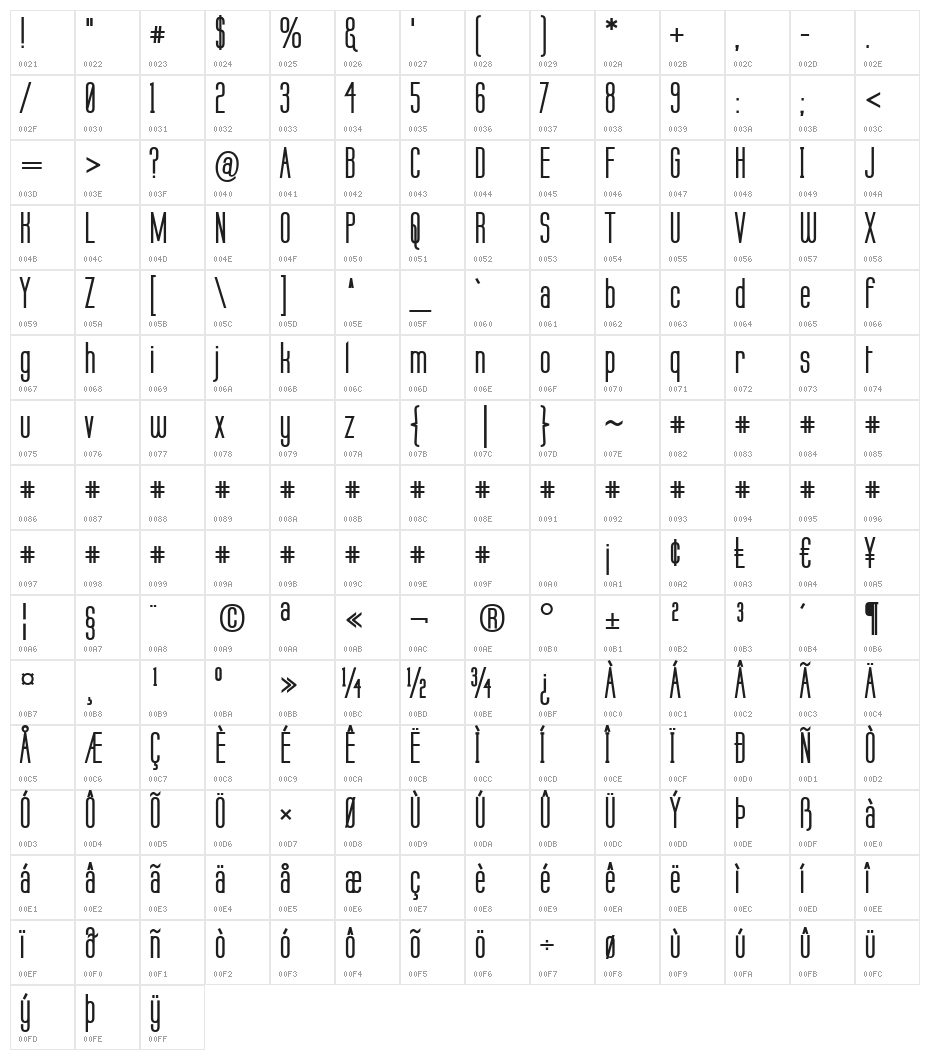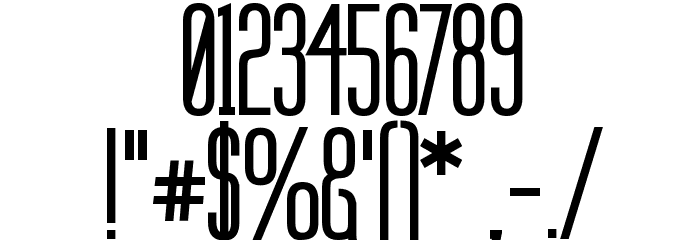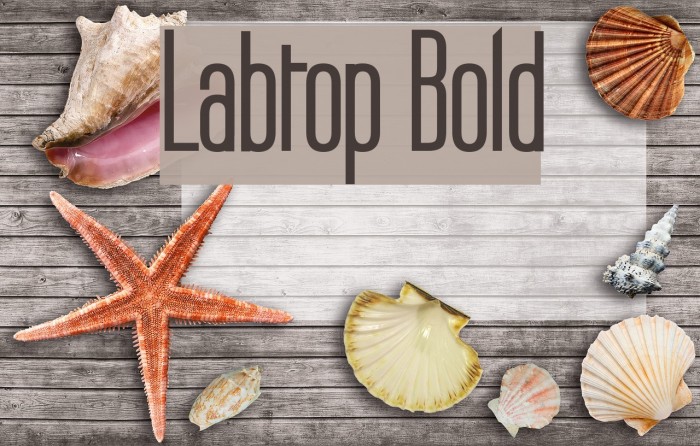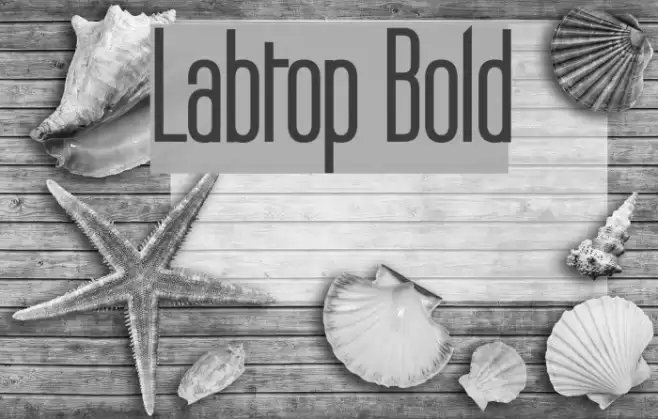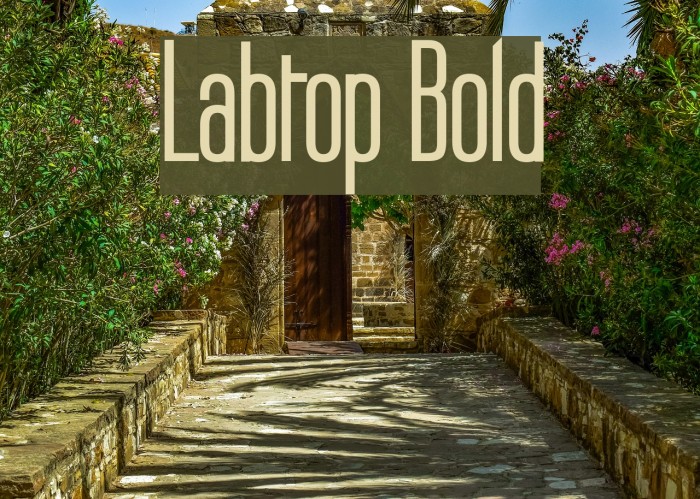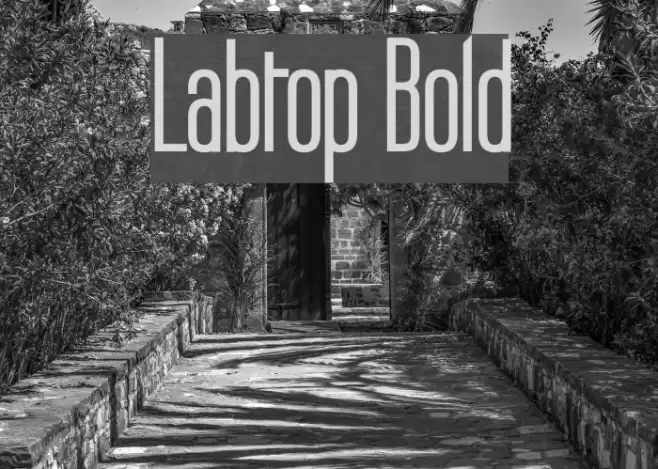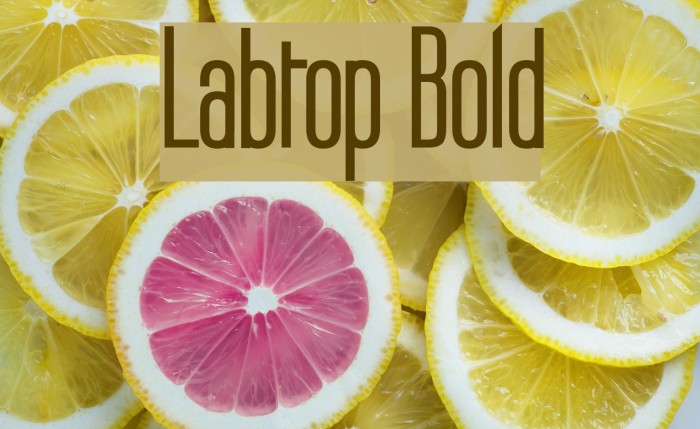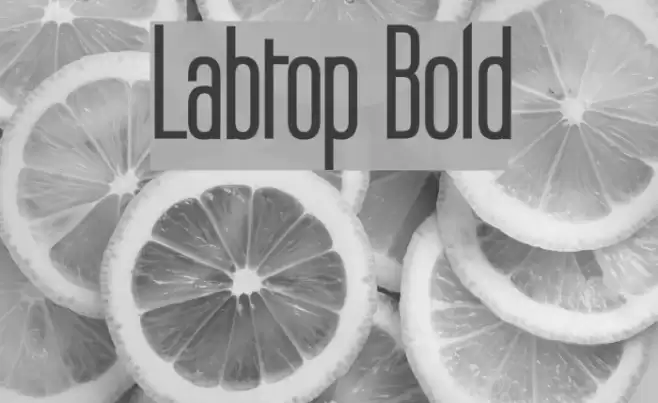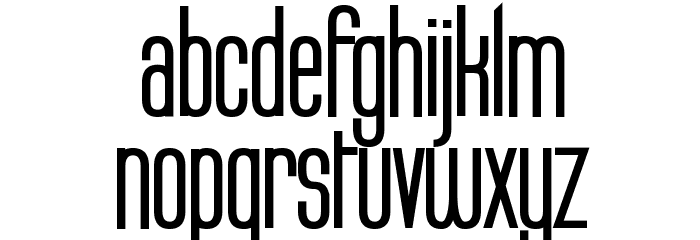
Labtop Bold Font
Labtop Bold Description
This font features a tall and narrow design with a modern aesthetic. The characters are elongated, giving a sleek and sophisticated appearance. The uppercase letters maintain a consistent height, while the lowercase letters are slightly shorter, maintaining readability. The numbers are distinct and align well with the overall style. Special characters are included, matching the font's elongated and narrow characteristics. This font's clean lines and uniform stroke width make it suitable for contemporary design projects.
| Proposed Projects | Ideal for fashion magazines, modern branding, and minimalist posters. |